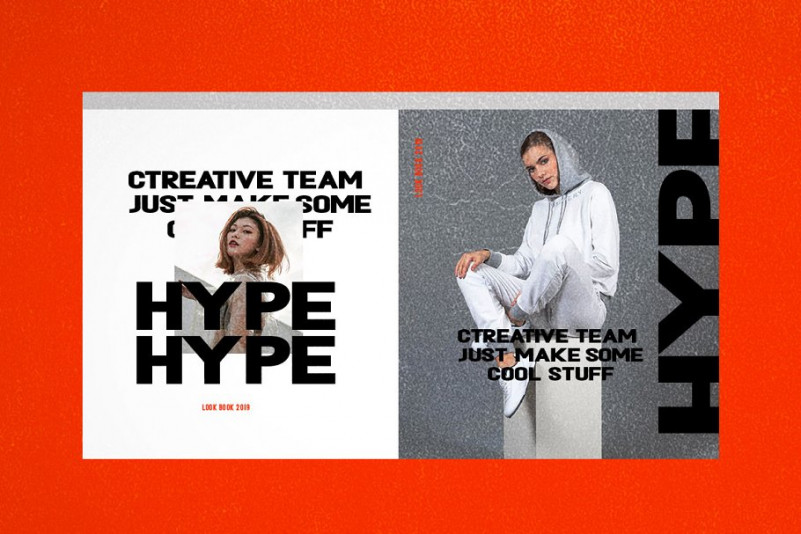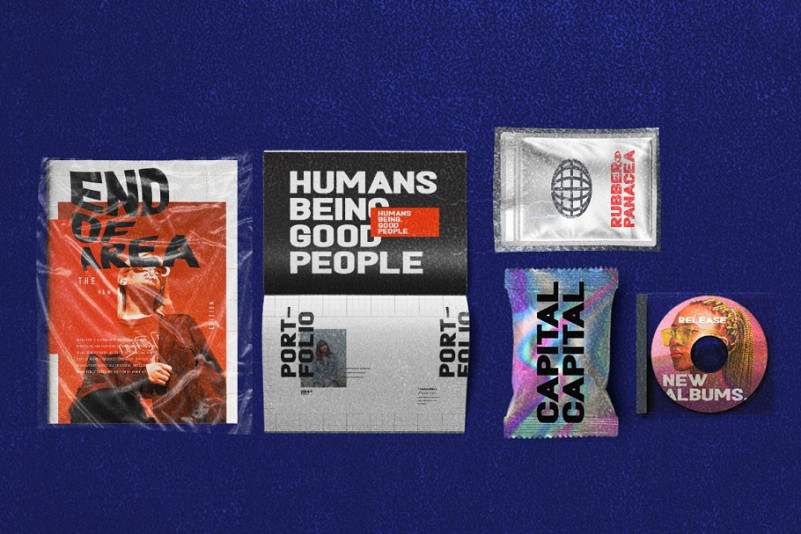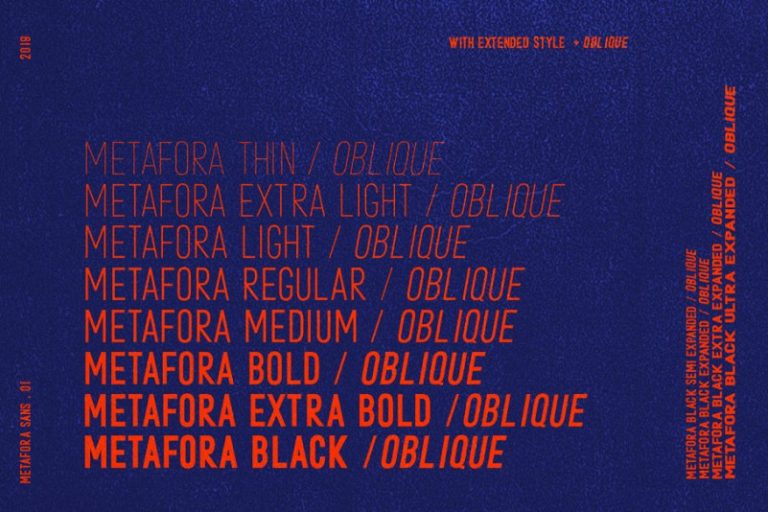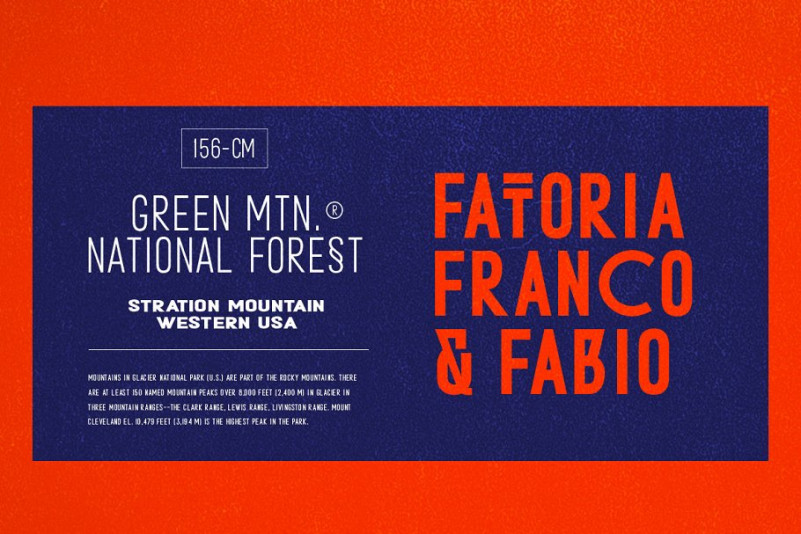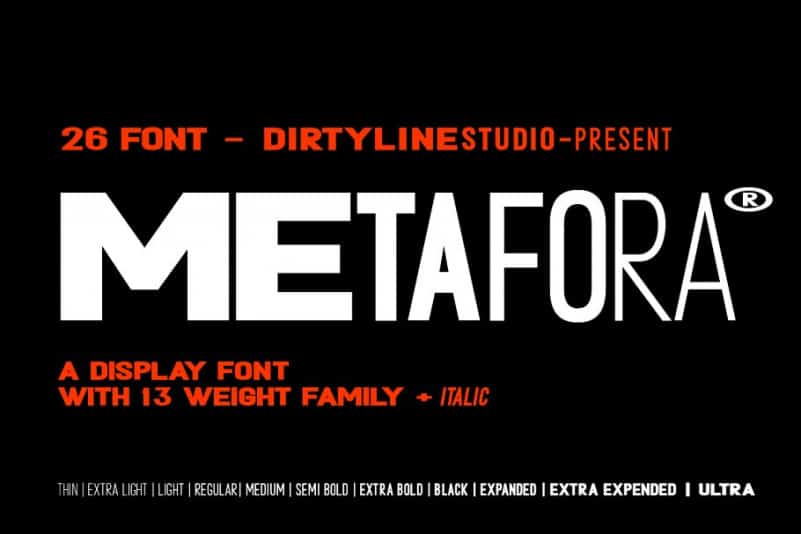
Metafora Sans Font Family
Metafora Sans Font Family – Free Demo
Metafora Font – This is a playful and elegant sans serif, perfect for branding projects, headlines, posters and packaging also for logos! It is designed and shared by Dirtyline Studio. Metafora Sans Font Family is a contemporary display family with multifunctional workhorse designed to work best in any printed and on screen contexts, including logo design, brand identities, websites, packaging, poster and headline. The Typeface come in 13 weights, with Upright and Oblique each, for a total of 26 styles.